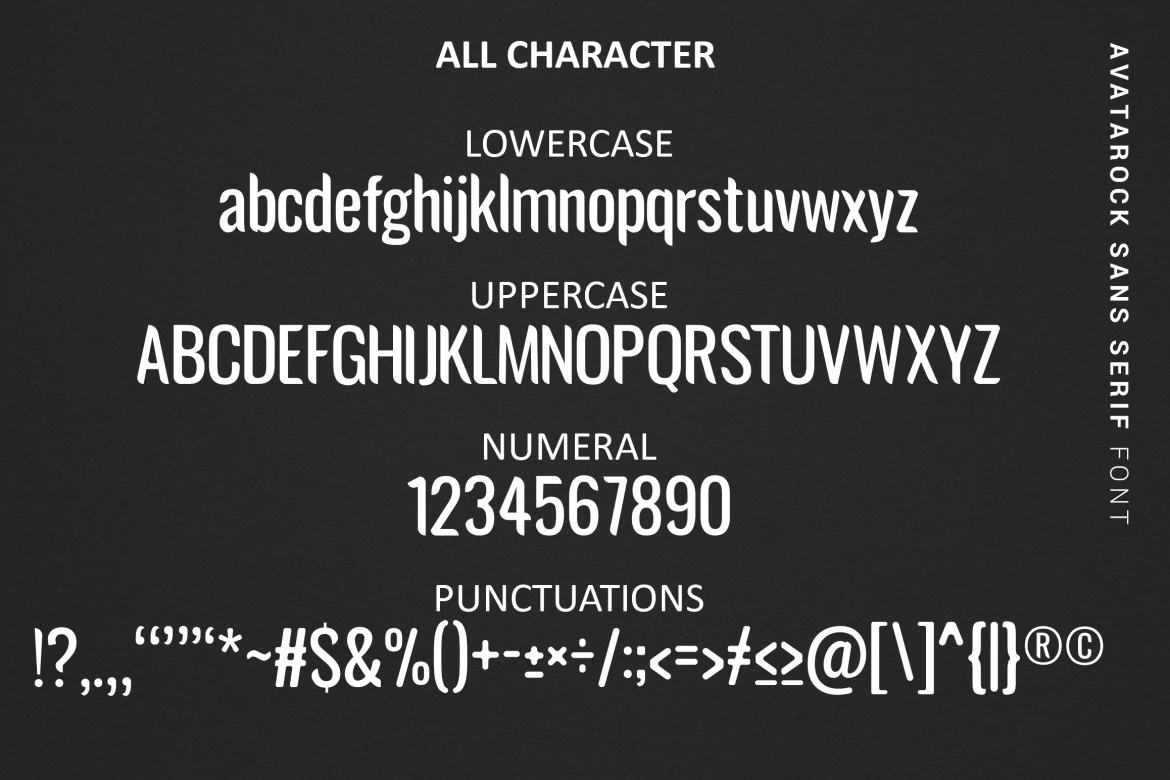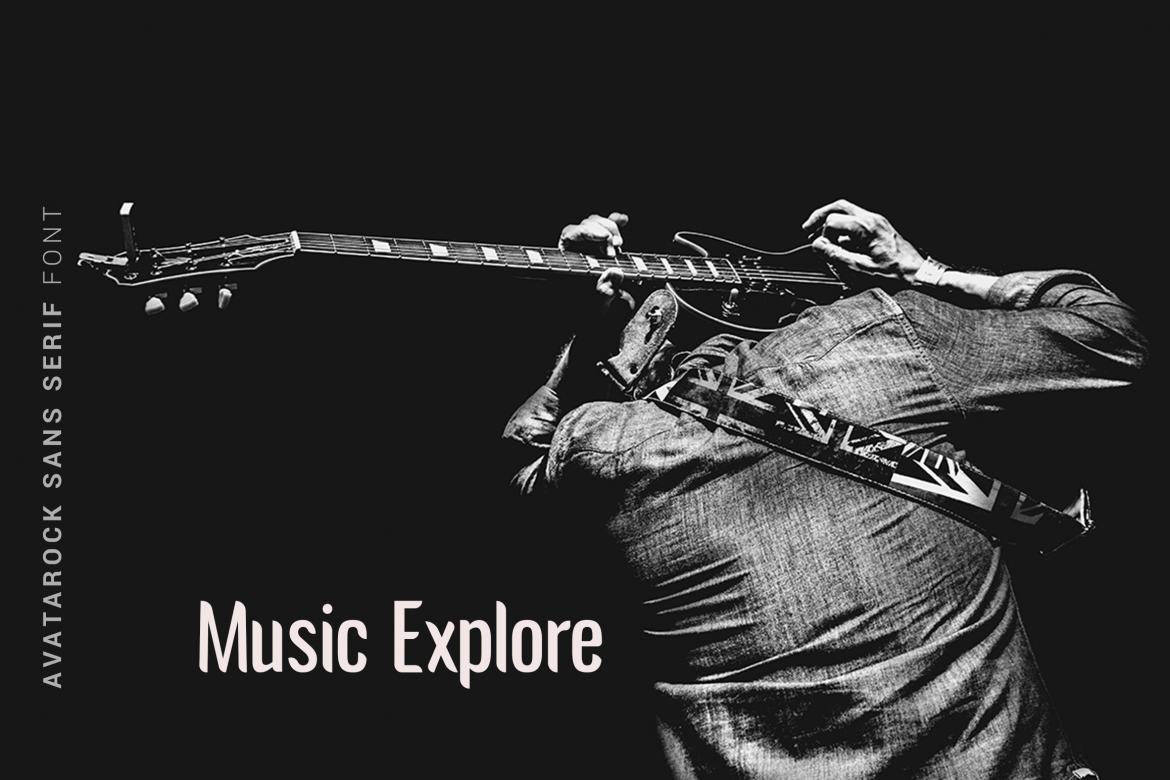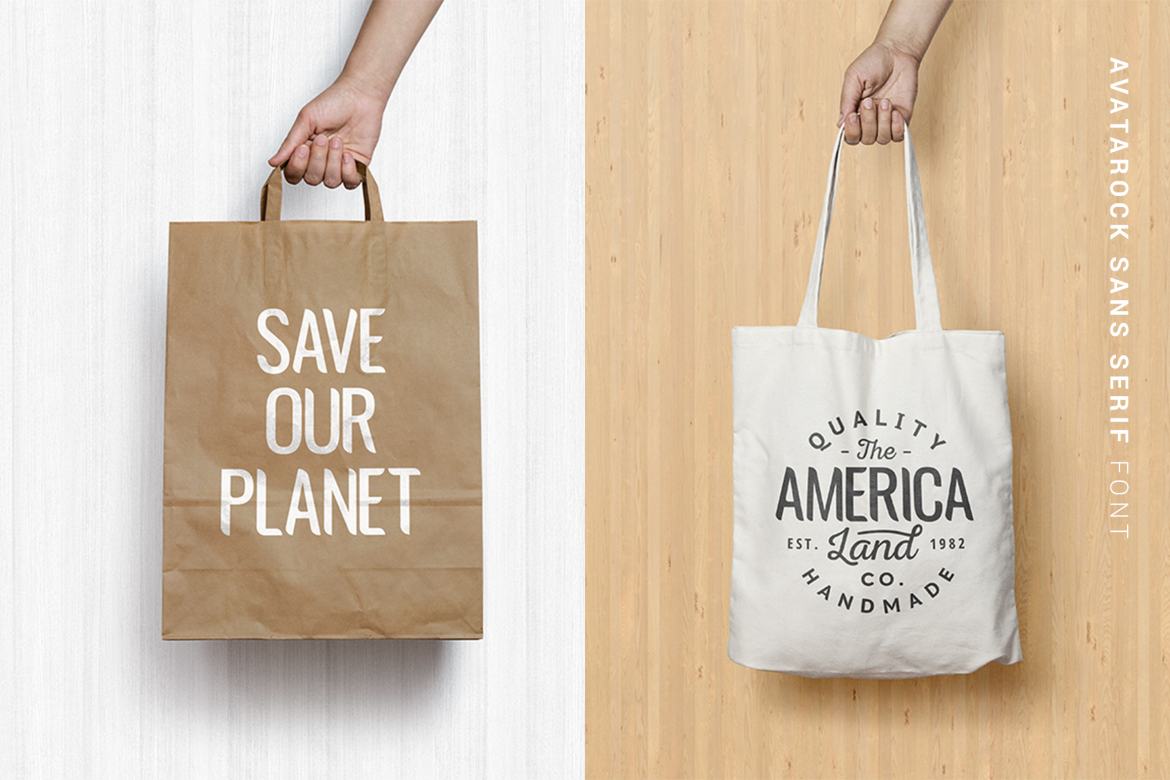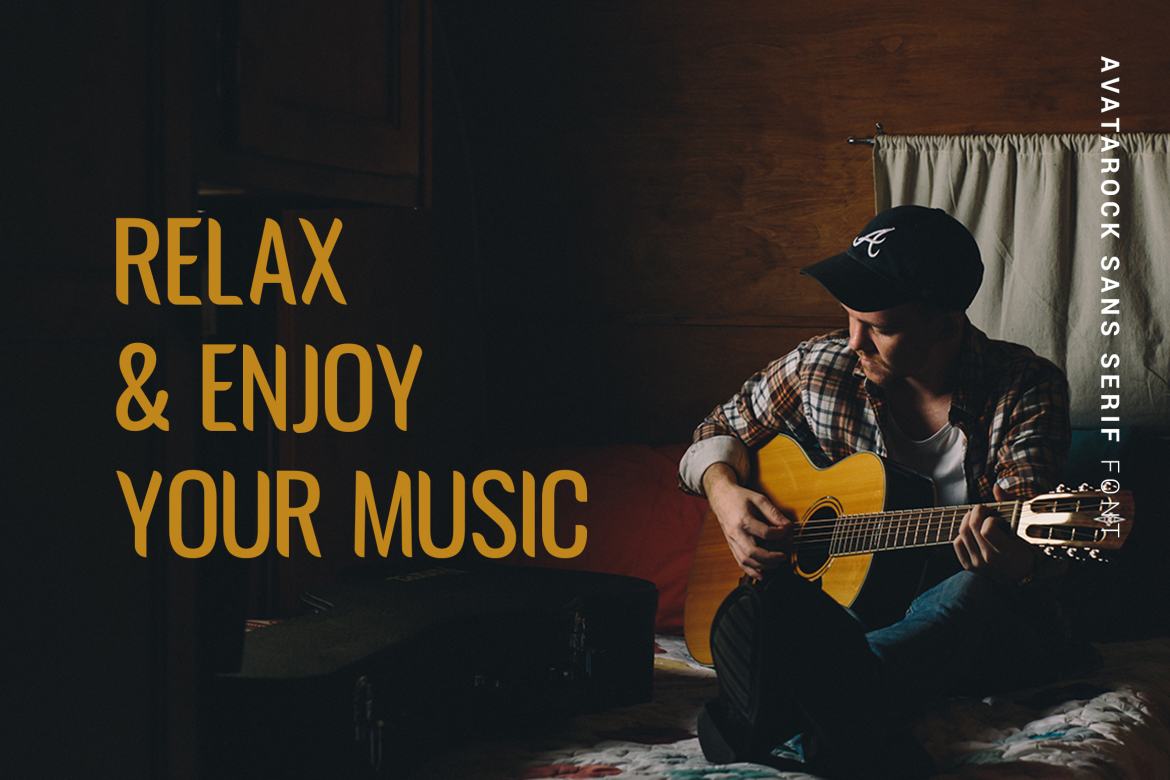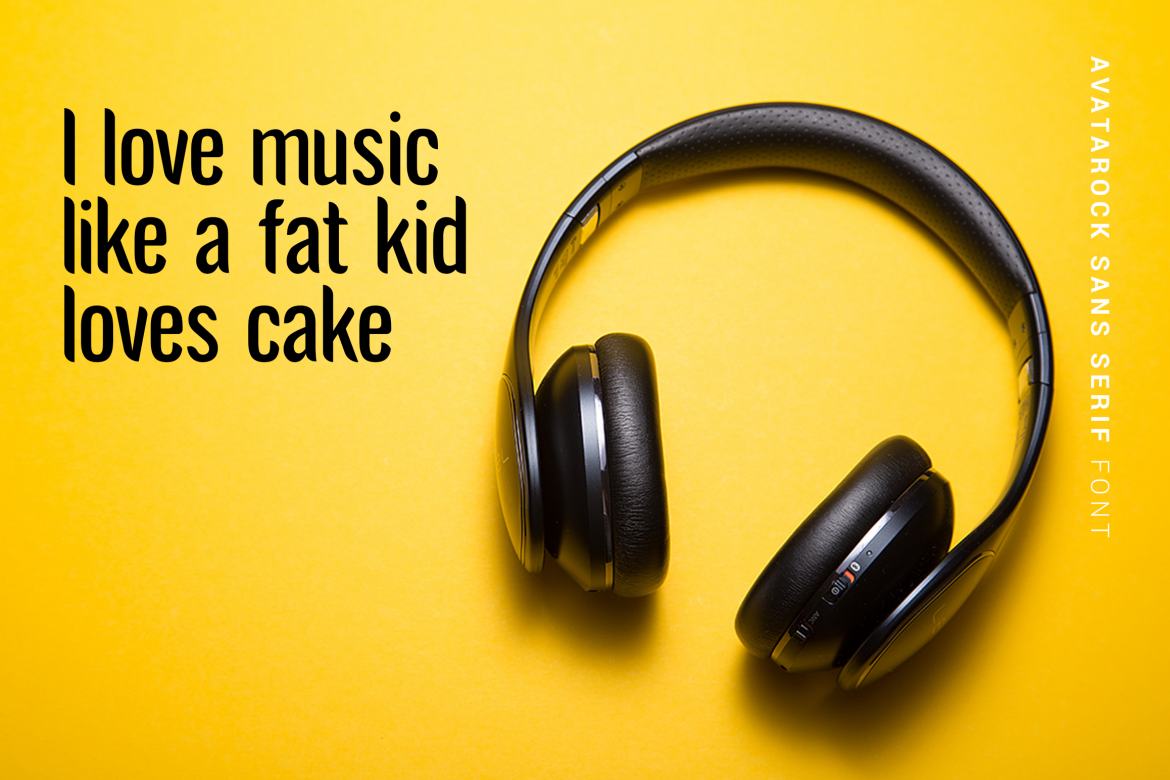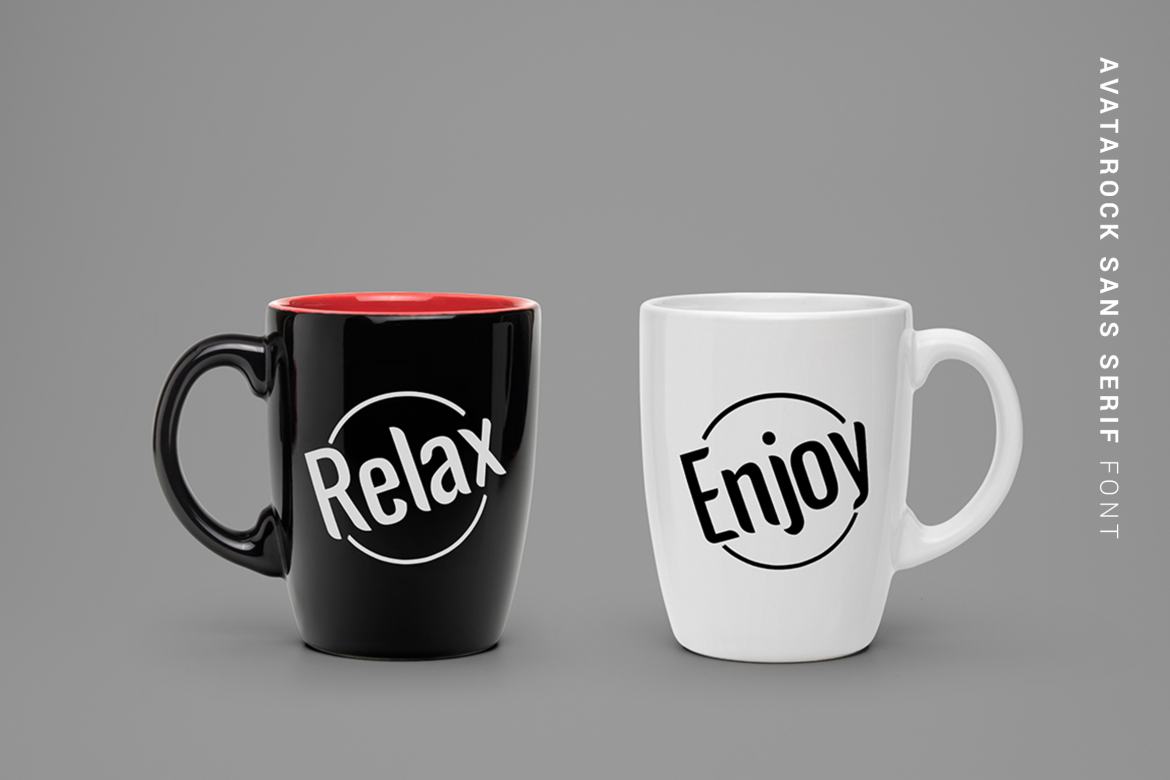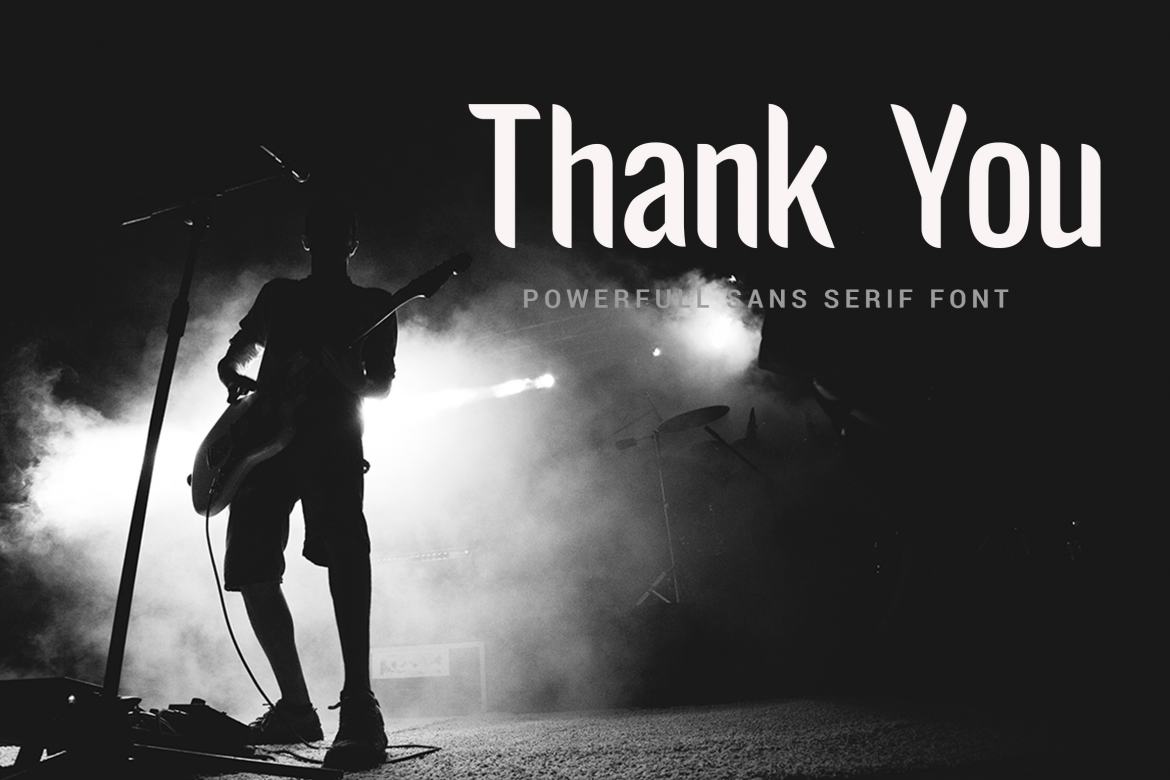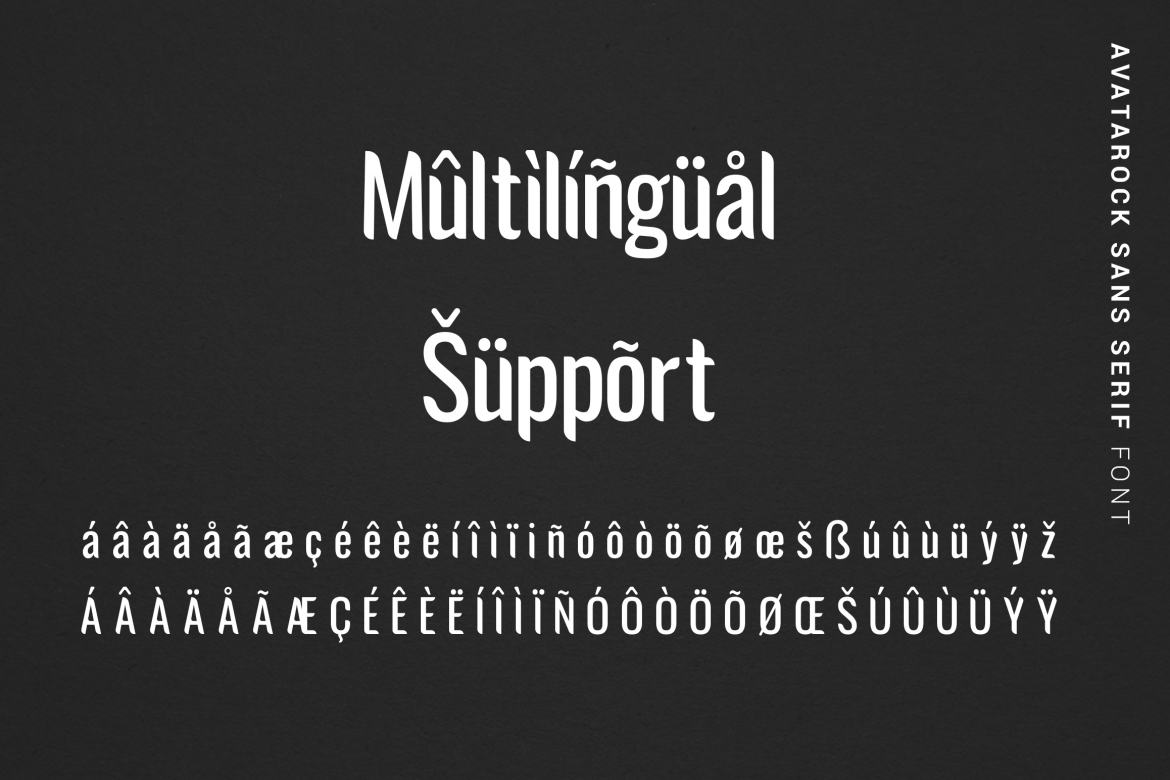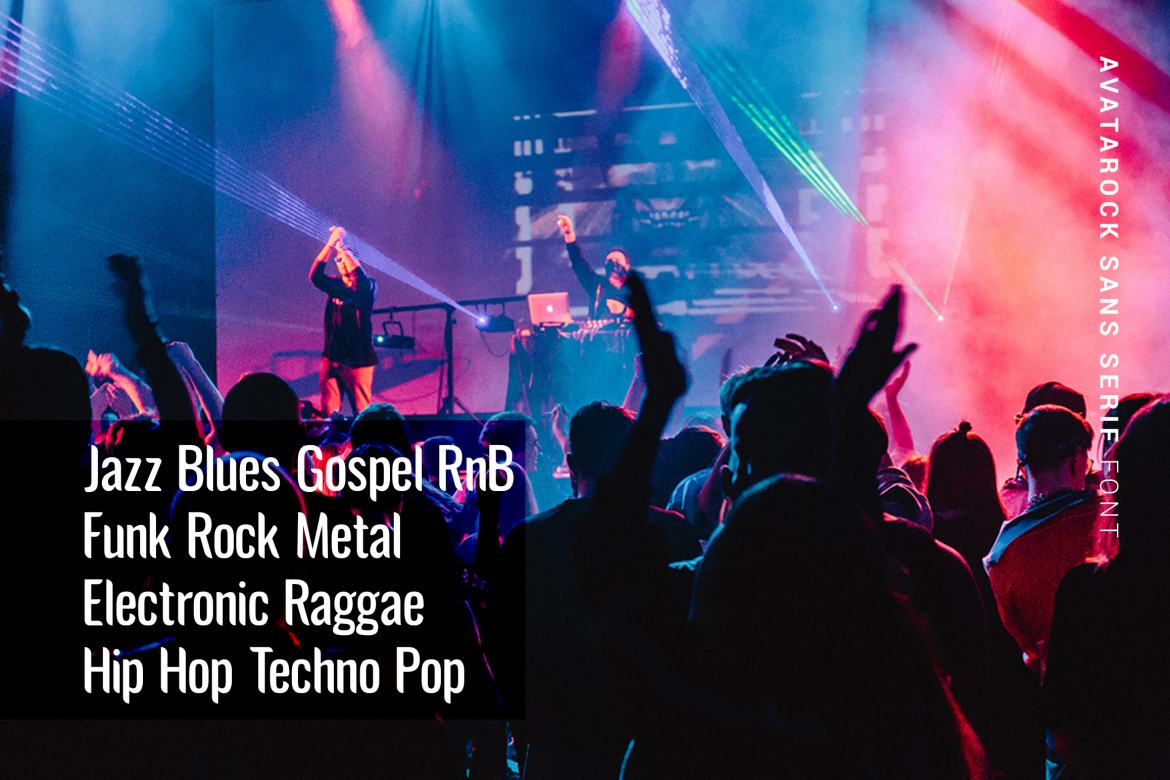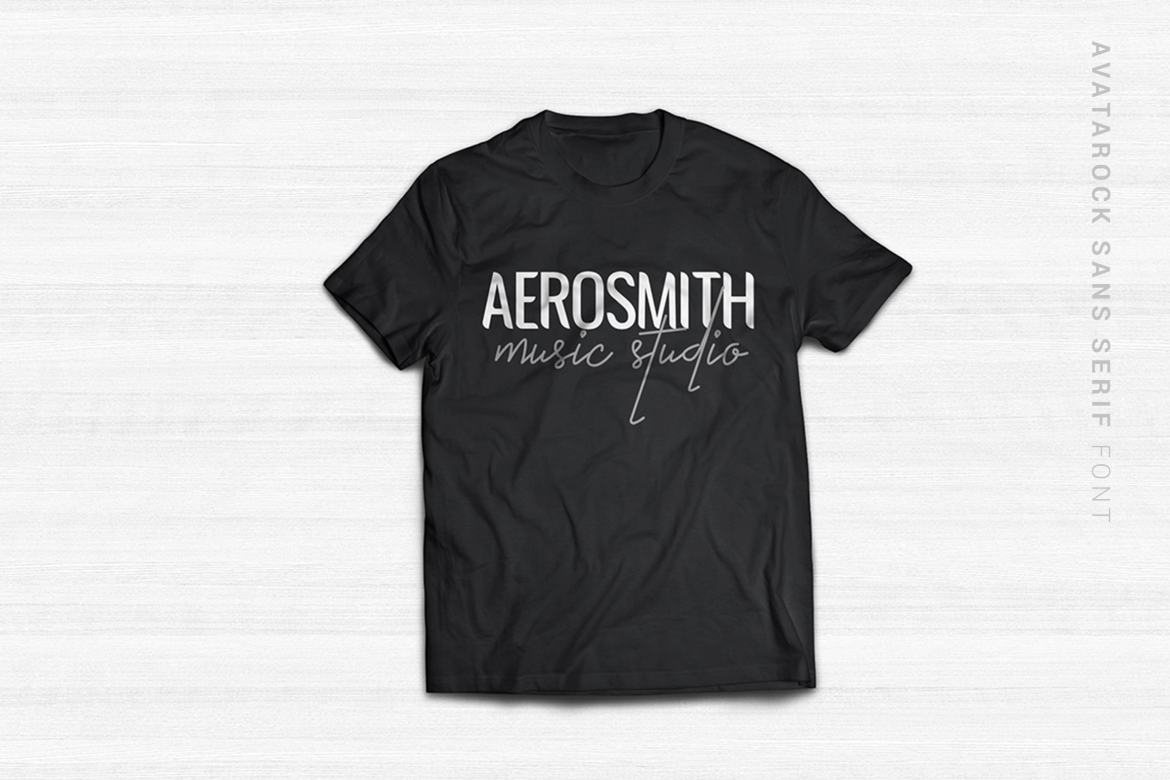
Avatarock - Free Modern Font
Avatarock
Avatarock is powerful and beautiful condensed sans serif display font. It brings charming curves and satisfying patterns to modern condensed fonts. This font designed for modern impact, without sacrificing style or legibility. It looks especially stunning in large scale, although it still carries a punch at smaller point sizes. It's born to be a blessing for designers and viewers alike!
-Ibey Design Studio-